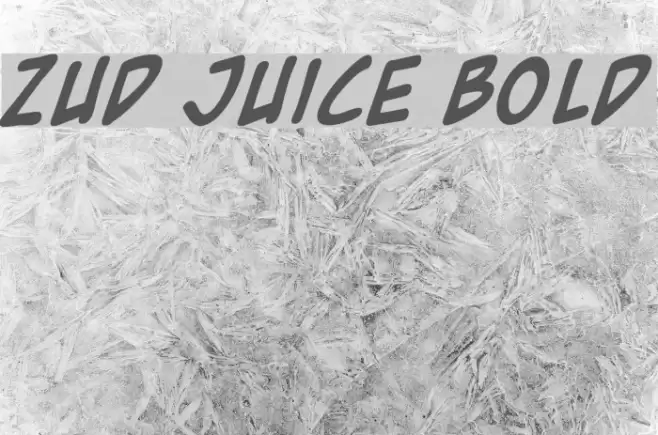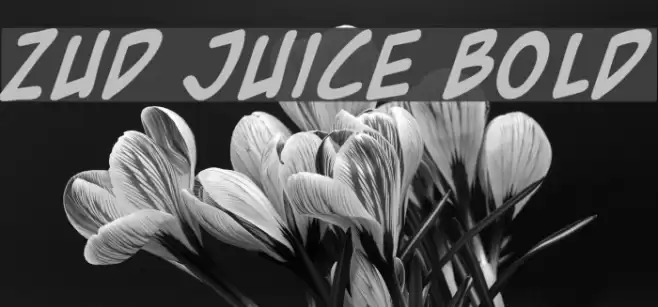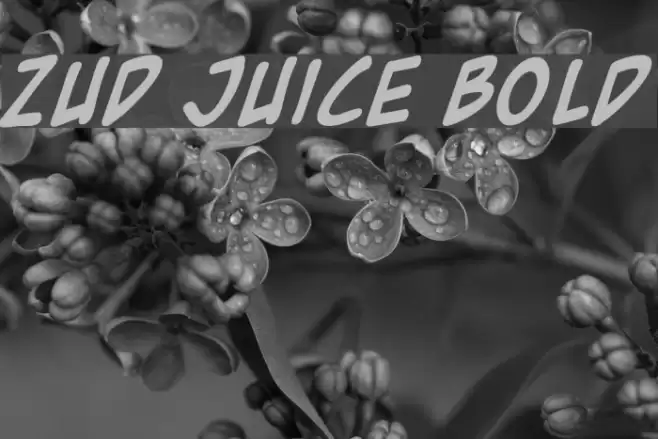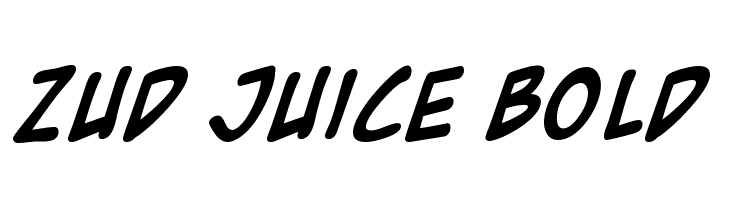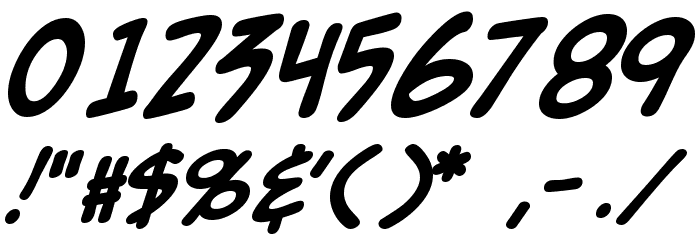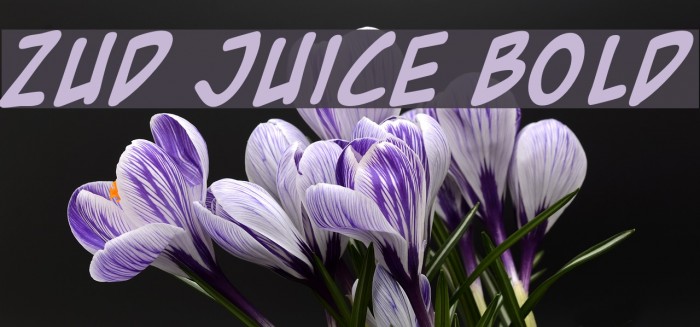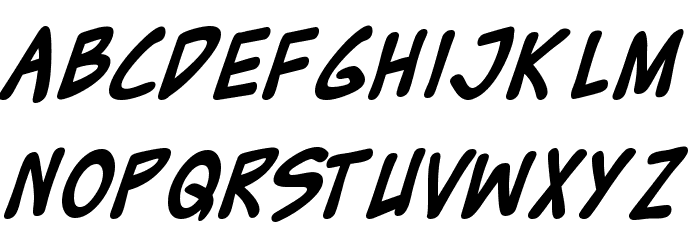
Zud Juice Bold Font
Zud Juice Bold Description
This font features a bold and energetic style with a handwritten appearance. The letters are slightly slanted, giving a dynamic and informal feel. The strokes are thick and consistent, providing a strong visual impact. The characters are well-spaced, ensuring readability while maintaining a playful and casual aesthetic. The numbers and special characters follow the same lively design, making it suitable for creative and expressive projects.
A bold, handwritten-style font with a dynamic and playful appearance from Comic fonts.
- Proposed Projects: Ideal for branding, posters, social media graphics, and any project requiring a lively and informal touch.